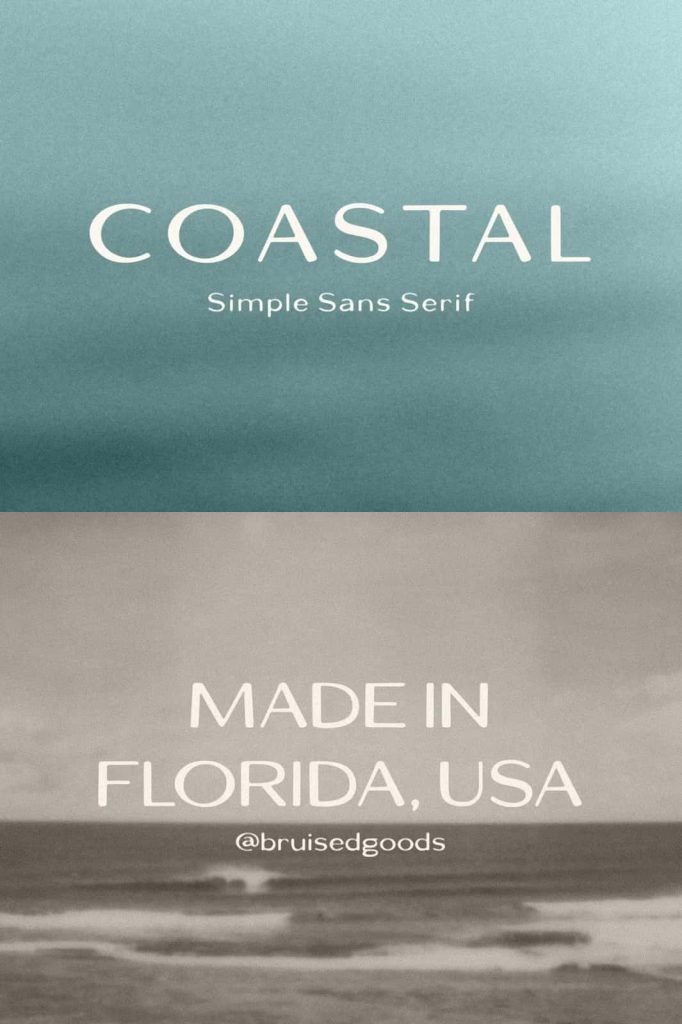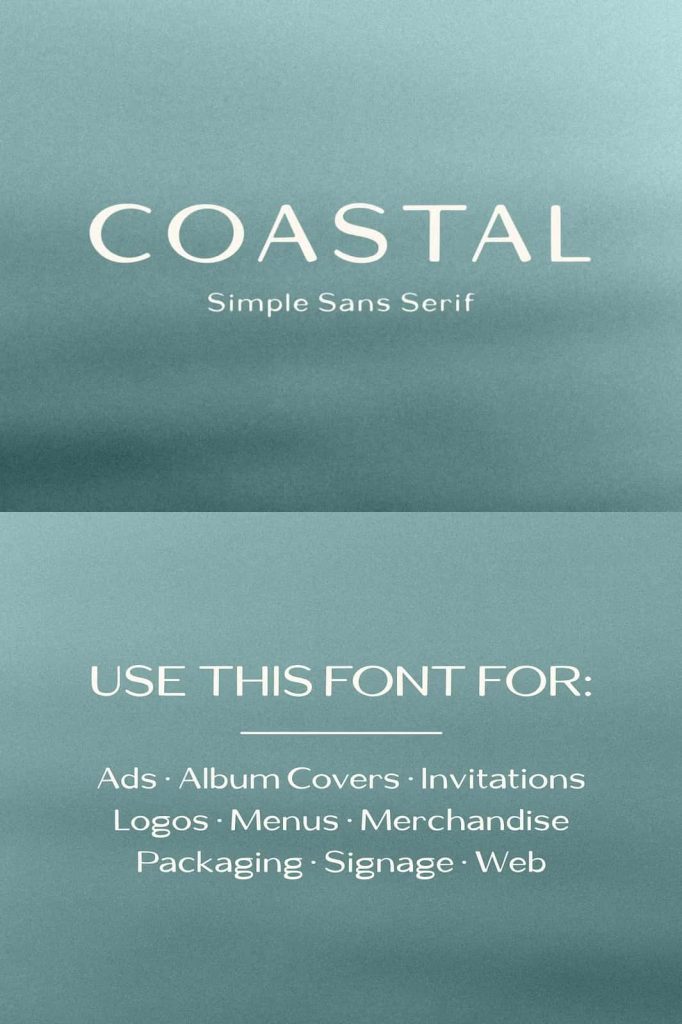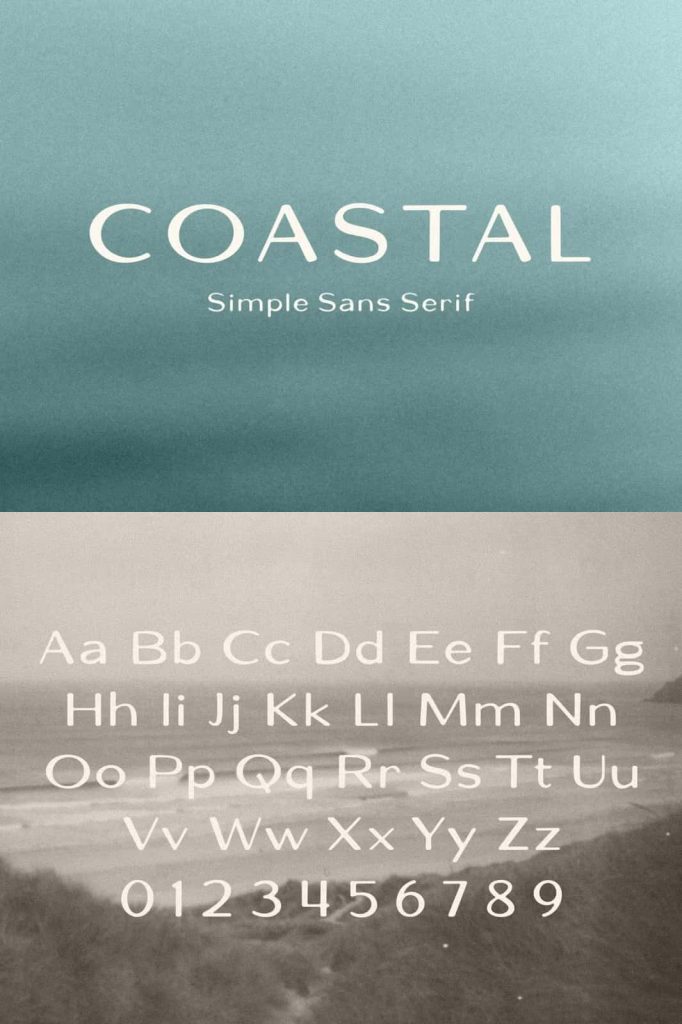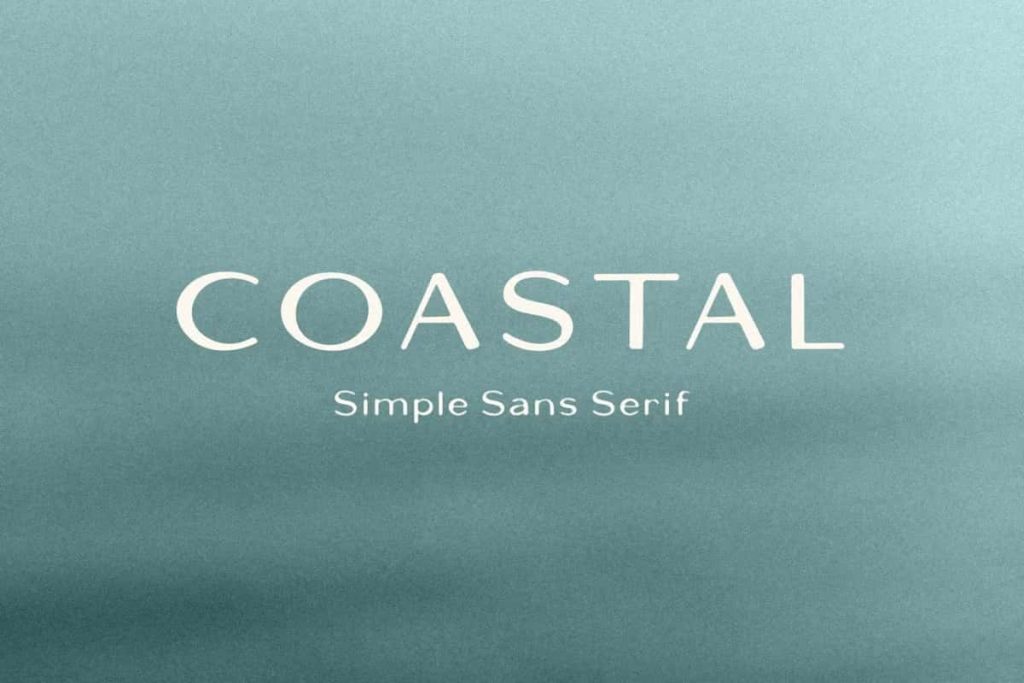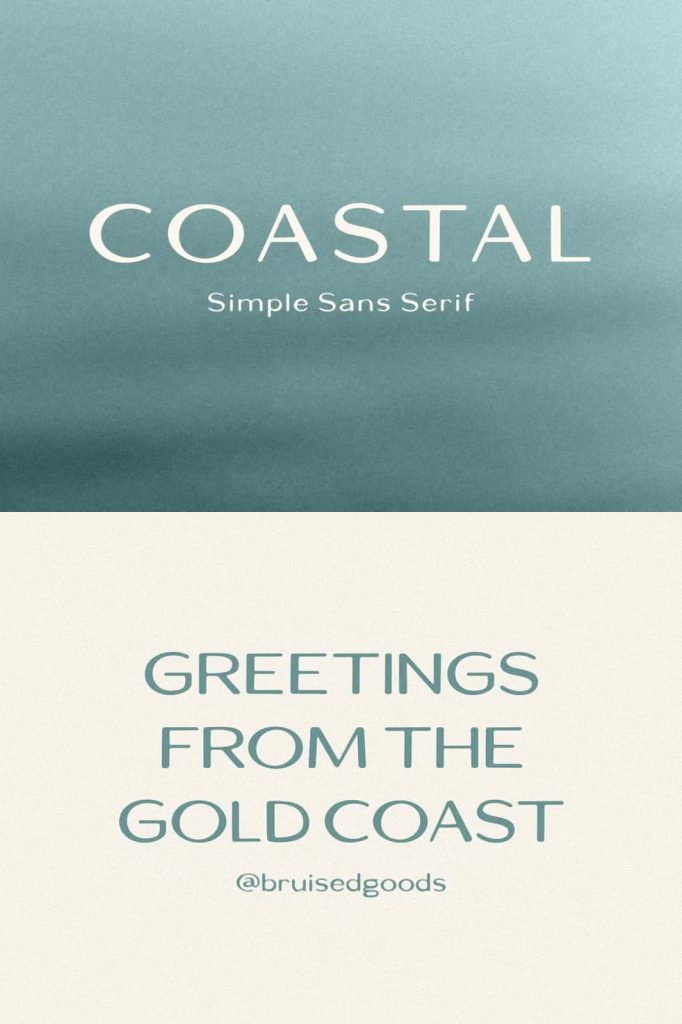
COASTAL – Sleek Handcrafted Sans Serif Font
COASTAL is a sleek, handcrafted sans serif font that combines clean modern styling with the warmth and personality of handmade typography. Carefully designed by Lauren Kilbane in sunny South Florida, USA, this versatile typeface captures a fresh coastal spirit while maintaining a professional appearance suitable for a wide variety of creative applications. Every letter features smooth lines, balanced proportions, and subtle handcrafted details that make your typography feel approachable, contemporary, and visually engaging.
Whether you’re developing a memorable brand identity, designing stylish packaging, producing eye-catching advertisements, or creating elegant invitations, COASTAL gives your work a polished look without sacrificing originality. Its clean letterforms and handcrafted character make it an excellent choice for designers who want modern typography with authentic personality.
A Modern Sans Serif with Handcrafted Character
COASTAL brings together the best qualities of modern sans serif typography and handcrafted design. Unlike ordinary geometric fonts, COASTAL introduces subtle handcrafted details that add warmth, movement, and individuality to every word. The result is a font that feels clean and sophisticated while remaining inviting and full of character.
The balanced spacing and carefully crafted letterforms provide excellent readability at both large and medium sizes. This versatility allows COASTAL to perform beautifully across print and digital media, making it a dependable addition to any designer’s font collection.
Designed to Elevate Creative Projects
Every creative project deserves typography that enhances the overall design rather than simply filling space. COASTAL helps establish strong visual hierarchy while maintaining a modern aesthetic that complements countless design styles. Whether your project requires a minimalist appearance or a bold visual statement, this handcrafted sans serif adapts effortlessly.
Its clean construction allows graphics, photography, and illustrations to shine while reinforcing your message with stylish, professional typography.
Ideal for Many Design Applications
COASTAL offers remarkable flexibility, making it suitable for a broad range of creative industries and design projects. Its modern appearance blends seamlessly into both commercial and personal work.
Branding and Logo Design
Create memorable logos and cohesive brand identities with typography that communicates confidence, simplicity, and professionalism. COASTAL delivers a timeless appearance that helps brands remain relevant across multiple platforms.
Advertising and Marketing
Design impactful advertisements, promotional graphics, banners, brochures, and marketing materials that capture attention while maintaining exceptional readability. The sleek letterforms help communicate messages clearly and effectively.
Packaging and Merchandise
From premium product packaging to branded merchandise, COASTAL enhances product presentation with clean typography that complements modern packaging trends. It works beautifully on labels, boxes, shopping bags, apparel, and promotional items.
Editorial and Print Design
COASTAL performs exceptionally well in magazines, catalogs, menus, flyers, greeting cards, invitations, and brochures. Its balanced letterforms create polished layouts that look professional across both short headlines and supporting text.
Digital and Web Design
Modern websites, landing pages, online advertisements, email campaigns, and social media graphics benefit from COASTAL’s clean appearance. The font maintains excellent clarity on digital screens, making it ideal for responsive web projects and online branding.
Perfect for Creative Professionals
Graphic designers, branding specialists, marketing agencies, content creators, illustrators, entrepreneurs, and small business owners can all benefit from the versatility of COASTAL. Its adaptable style allows it to complement numerous industries, including fashion, beauty, hospitality, lifestyle, retail, food, travel, wellness, and creative services.
Whether you’re creating a sophisticated restaurant menu, stylish apparel branding, premium cosmetic packaging, or elegant wedding stationery, COASTAL provides typography that feels fresh, refined, and memorable.
Features That Make COASTAL Stand Out
- Sleek handcrafted sans serif design
- Modern, clean, and versatile letterforms
- Professionally designed by Lauren Kilbane
- Excellent readability across multiple sizes
- Ideal for both print and digital projects
- Perfect for branding and logo creation
- Suitable for advertising and promotional materials
- Works beautifully for apparel and merchandise
- Excellent choice for invitations, cards, and stationery
- Complements minimalist and contemporary design styles
Recommended Uses
COASTAL is suitable for countless creative applications, including:
COASTAL is more than a simple sans serif font—it is a thoughtfully handcrafted typeface designed to help your projects stand out with modern elegance and timeless appeal. Inspired by the relaxed atmosphere of South Florida, it brings together simplicity, versatility, and handcrafted craftsmanship in one professional font. Whether you’re building a brand, designing packaging, creating digital content, or producing high-quality print materials, COASTAL gives every project a clean, stylish, and confident voice that leaves a lasting impression.